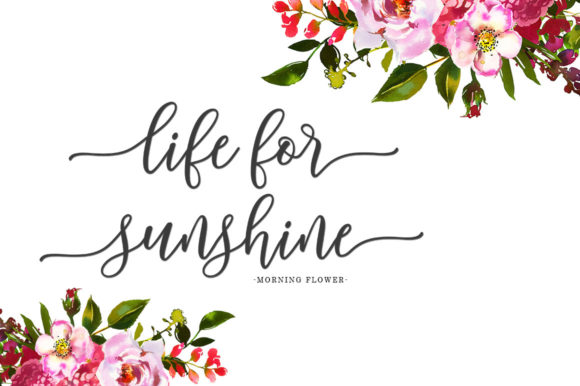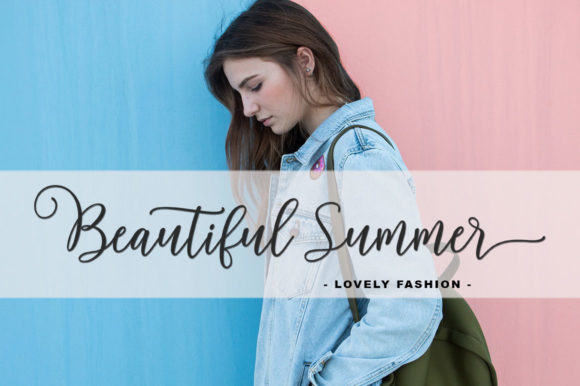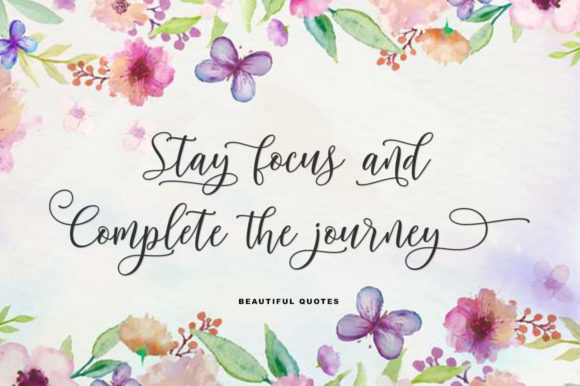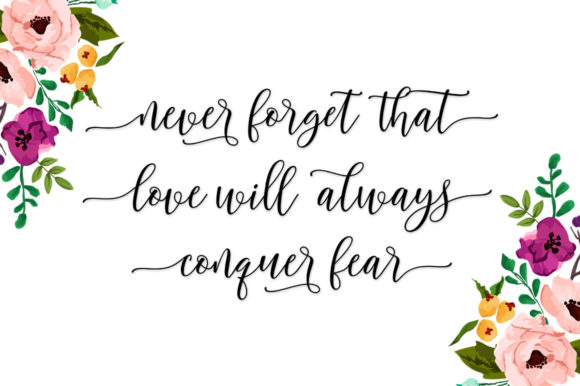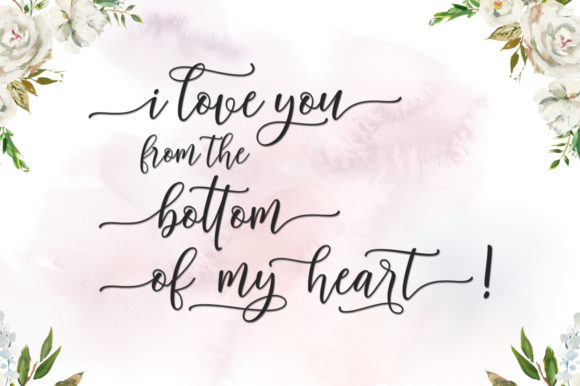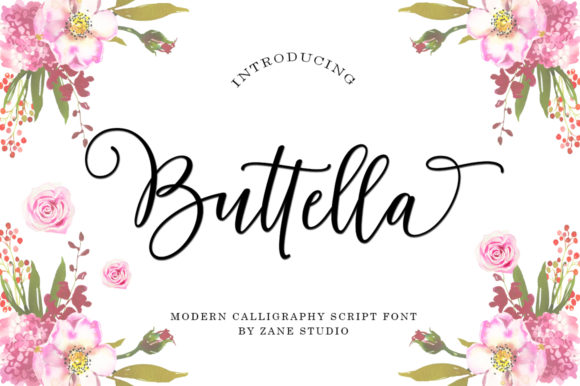
The Perfect Script for Your Masterpiece: Unveiling the Buttella Script Font
Have you ever been in the middle of a design project, staring at a blank canvas, and suddenly, an idea hits you? The words flow effortlessly, and your creative vision comes to life. That’s the magic of working with the right tools – and for designers, a beautiful script font can be the key to unlocking that perfect moment.
Enter the Buttella Script Font, a modern calligraphy font that captures the essence of natural writing. Its elegant and luxurious feel is perfect for adding a touch of sophistication to your designs. Whether you’re working on a wedding invitation, a branding project, or a personal art piece, this font is sure to elevate your work to the next level.
As a designer, you understand the importance of choosing the right font to convey your message. The Buttella Script Font is a valuable addition to any design toolkit, offering a unique and stylish way to express your creativity. With its versatility and beauty, it’s no wonder this font has become a favorite among designers and artists alike.
Buttella Script Font Key Features
- Font Style: Script, Handwritten
- Unique Characteristics: Whimsical, elegant, and flowing script font with a touch of sophistication and playfulness
Review of Buttella Script Font
Overall, I’m really enjoying working with the Buttella Script Font. Here are some of the things that stand out to me:
- ✨ Elegant and sophisticated look – This script font has a classic feel to it that makes it perfect for a variety of applications, from wedding invitations to high-end branding.
- ✨ Smooth connections – The connections between letters are seamless, making it easy to read and aesthetically pleasing.
- ✨ Good for short text – This font really shines when used for short phrases or titles, where its elegance can be fully appreciated.
Of course, no font is perfect, and there are a few limitations to be aware of:
- ⚠️ Limited legibility – While the font is beautiful, it can be a bit tricky to read at smaller font sizes, particularly for long blocks of text.
- ⚠️ Not suitable for body text – Due to its elegant, cursive nature, this font isn’t ideal for large blocks of text, like body copy.
Overall, I think the Buttella Script Font is a great choice for designers looking to add a touch of elegance to their projects. Just be mindful of its limitations and use it sparingly for maximum impact.
For a more professional look, use the Buttella Script font in combination with other fonts, such as a sans-serif font for headings.
Use the Buttella Script font in conjunction with other design elements, such as images or shapes, to create a visually appealing design.
Use the Buttella Script font to add a touch of elegance to your presentations or documents.
The Buttella Script font is ideal for:
- Wedding and event signage
- Headings and titles in creative projects
Remember to use the Buttella Script font in moderation to avoid overwhelming the design.